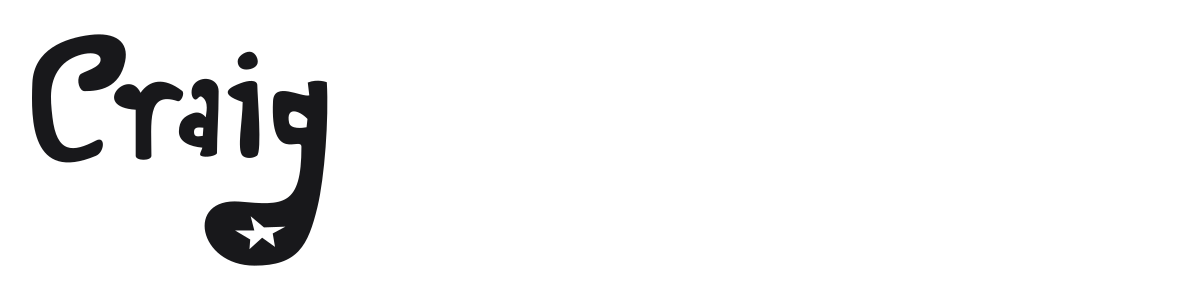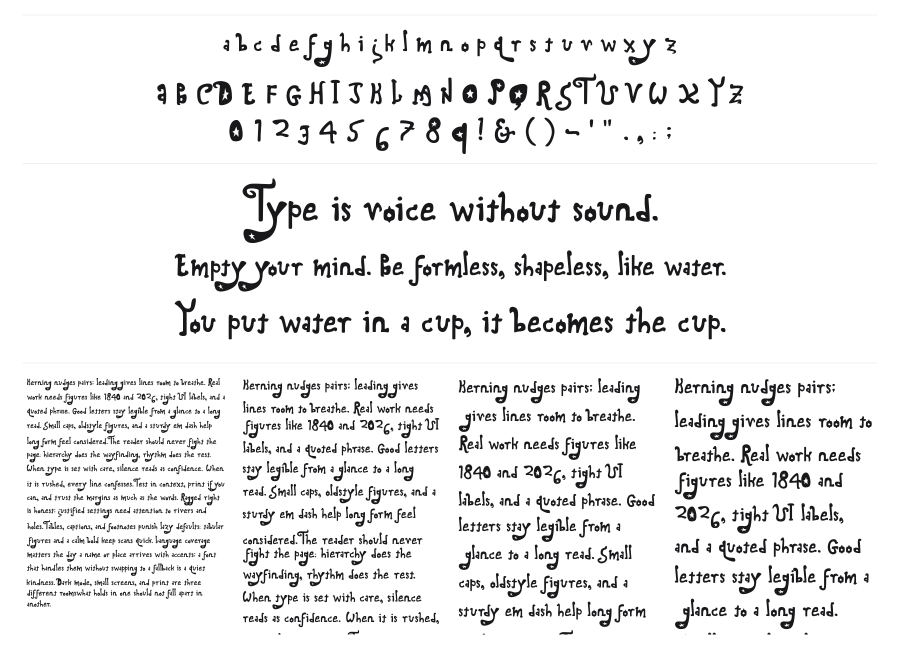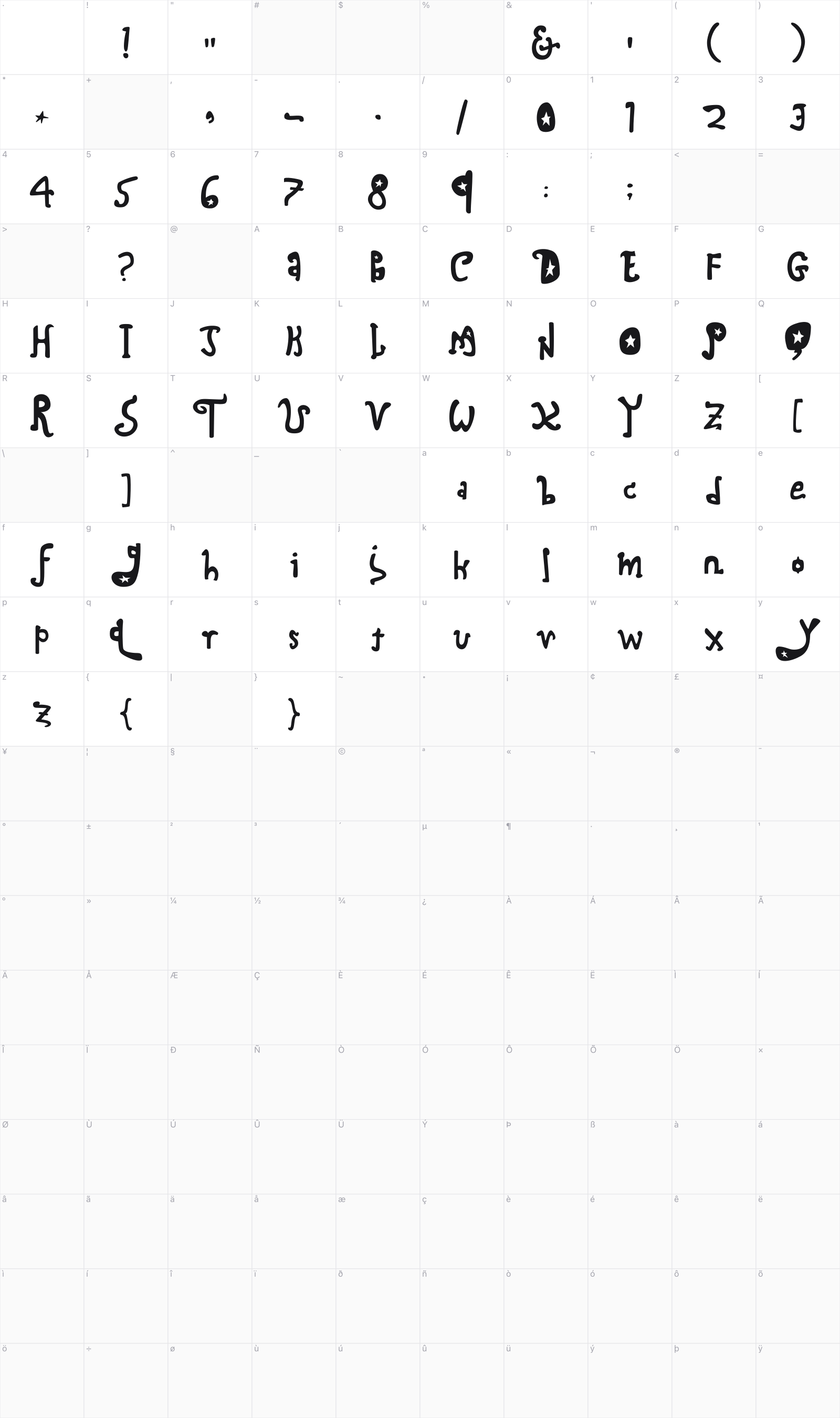
Craig
Craig is a bold, hand-drawn casual script with thick chunky strokes and a loose, cartoonish energy. The organic letter shapes, looping forms, and embedded star detail give it an unmistakably personal, homemade feel. Best used large where its playful character can breathe.